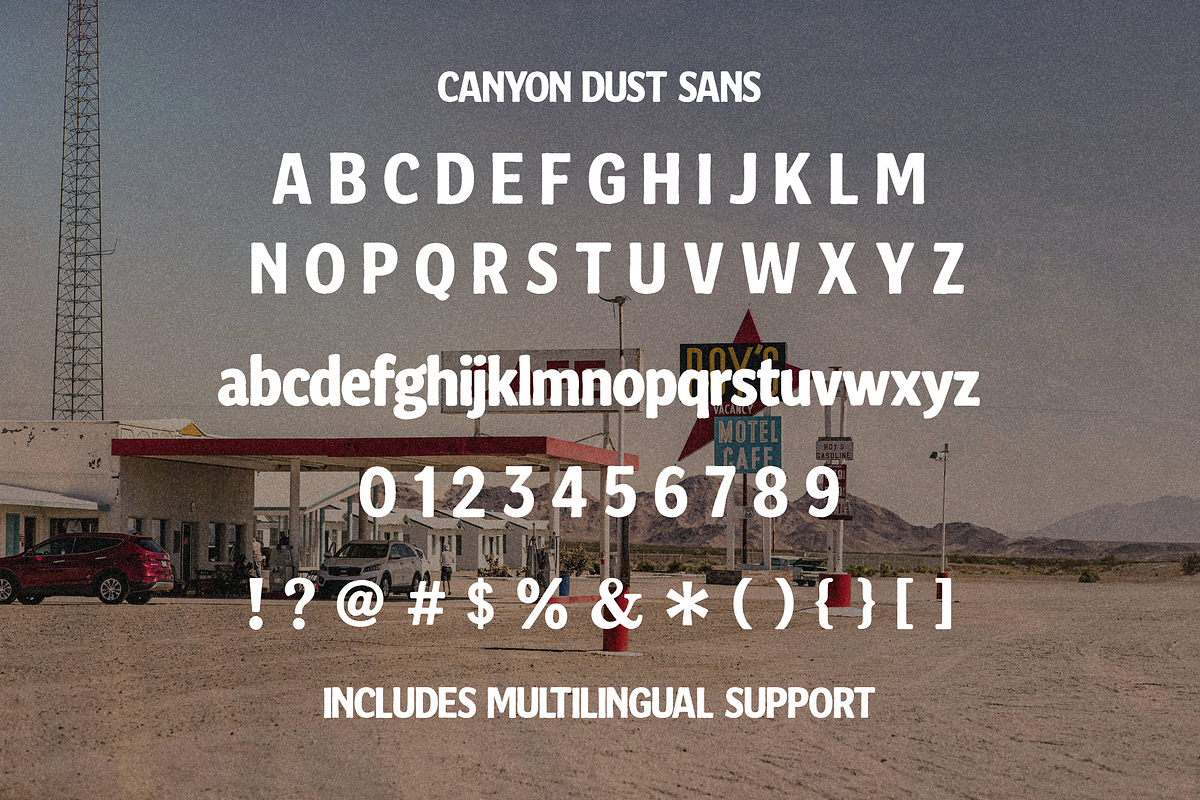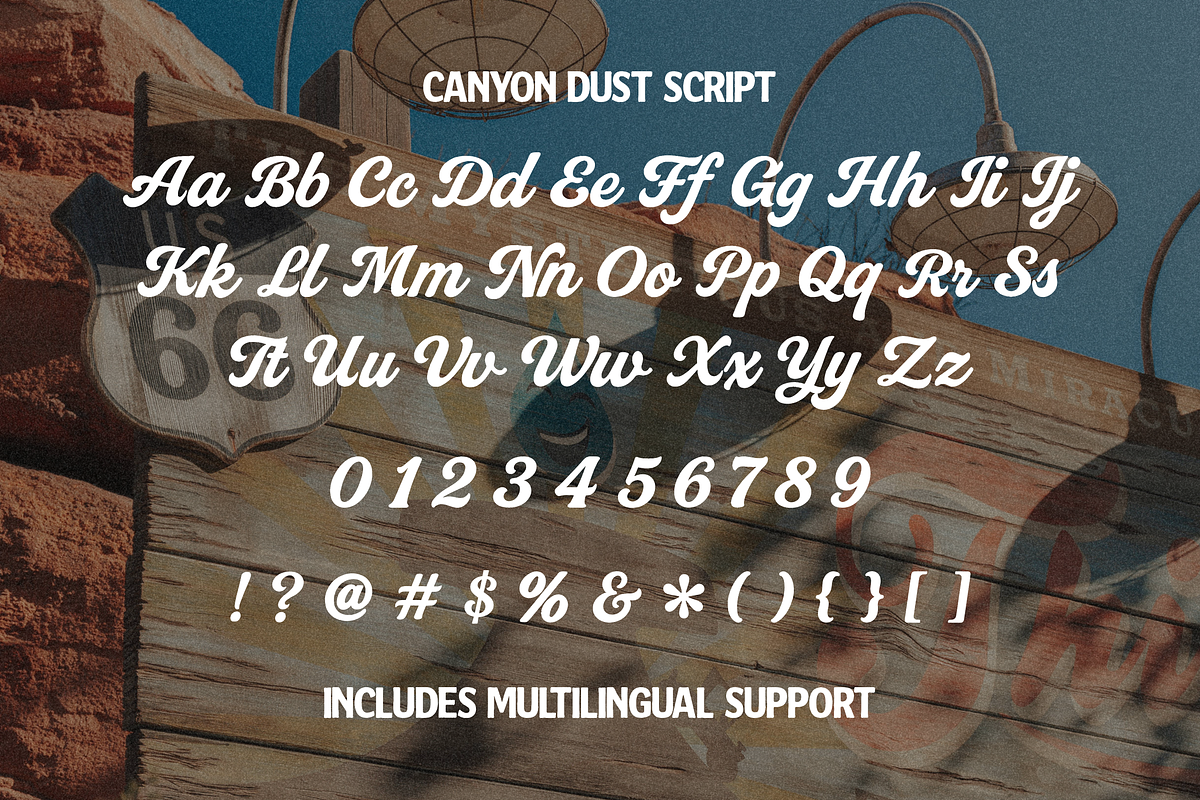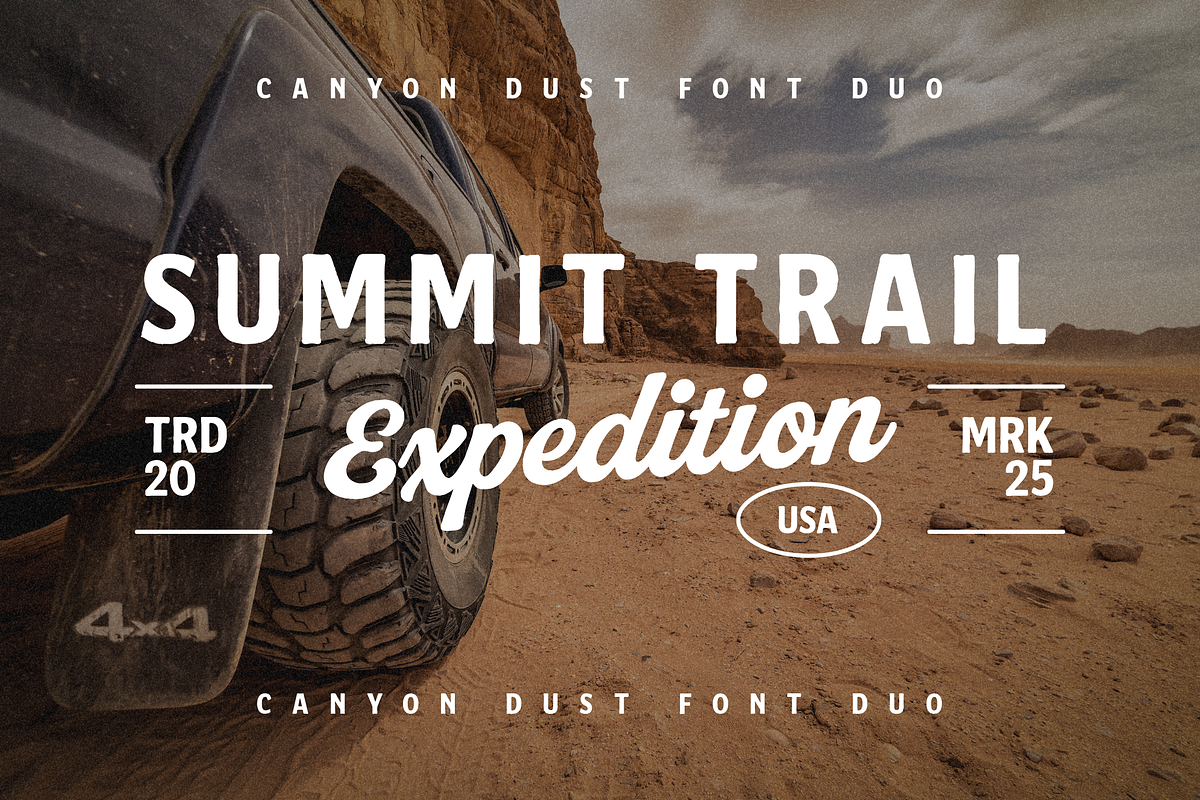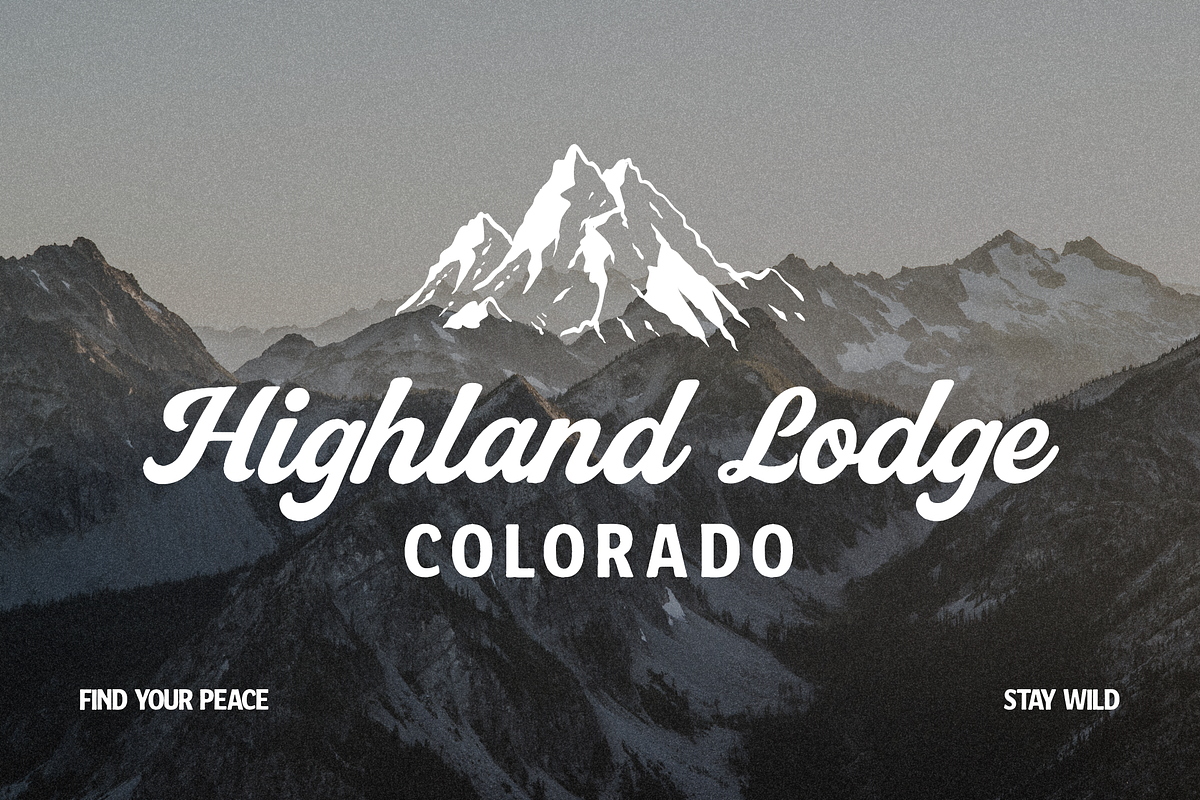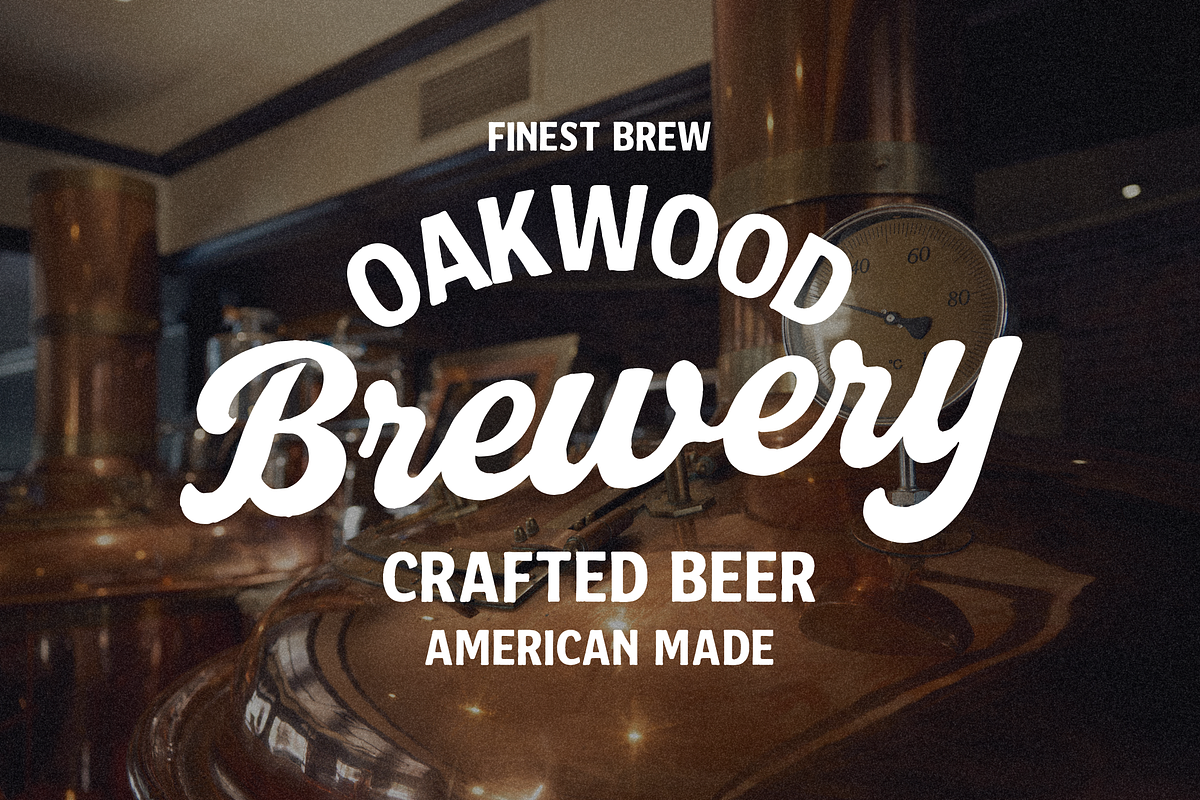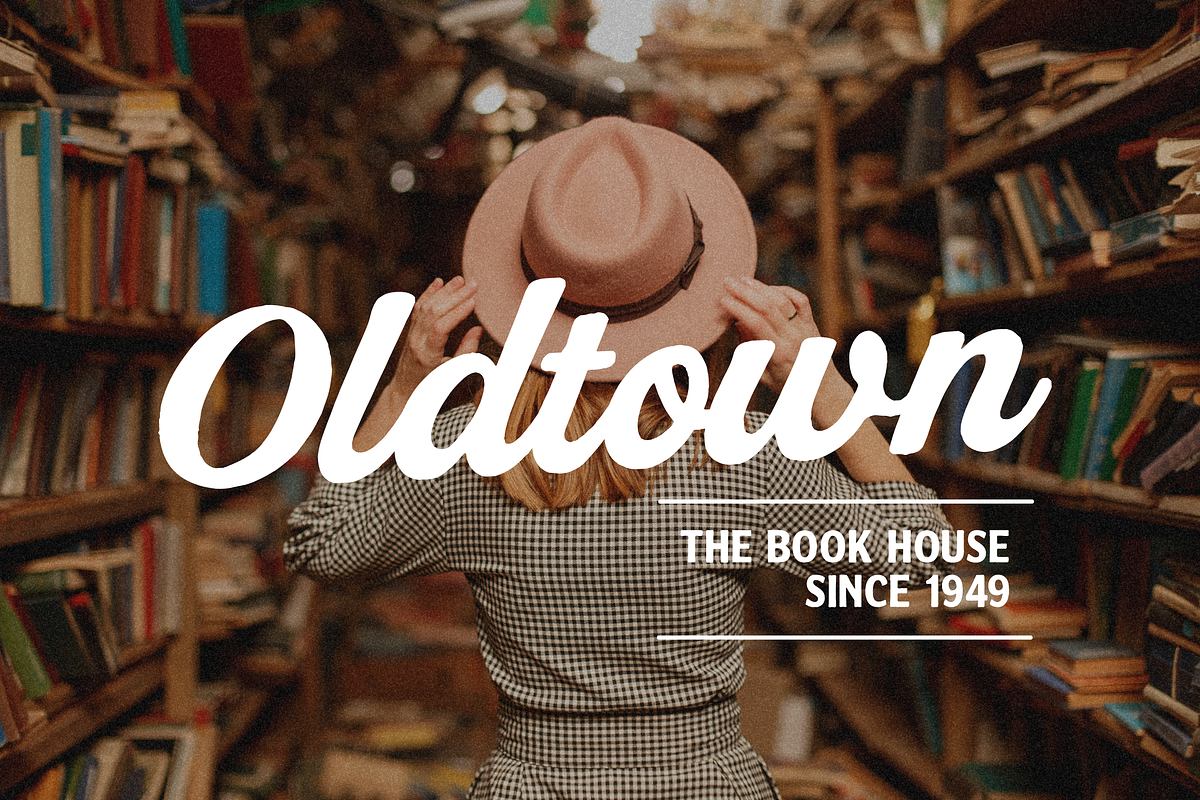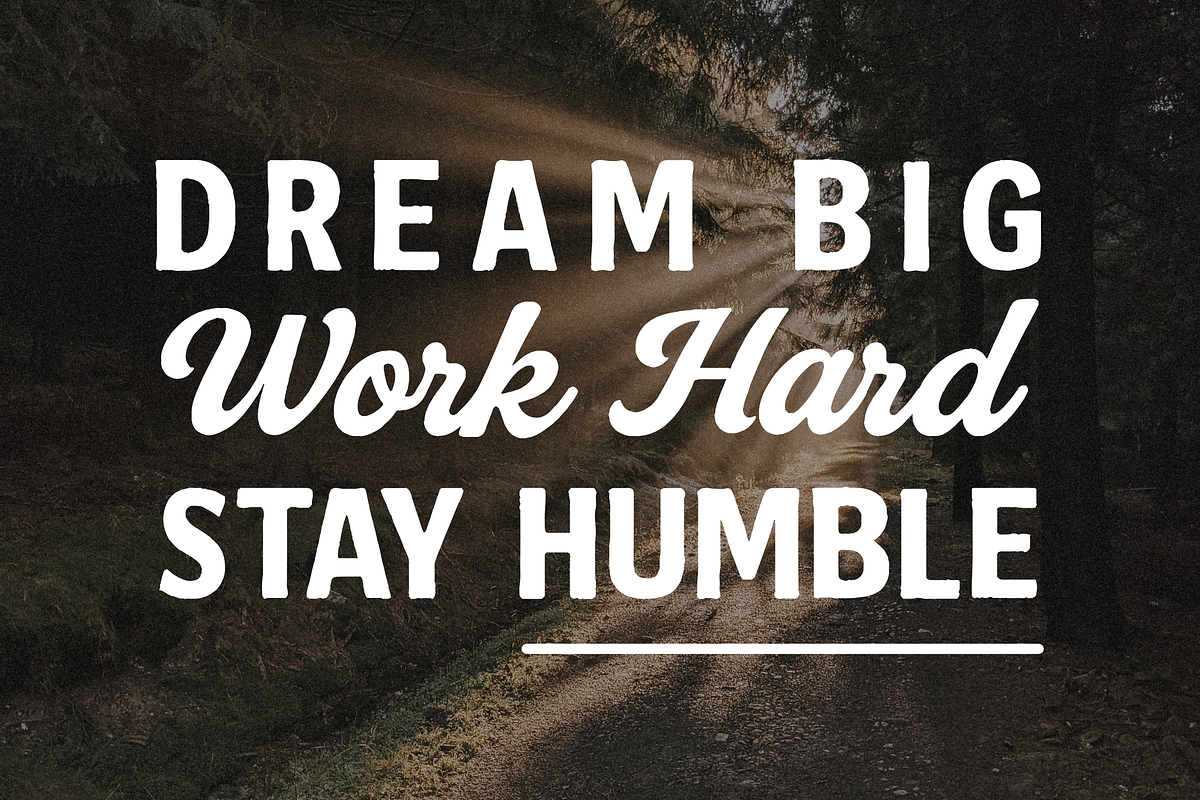
Canyon Dust Handcrafted Font Duo
Canyon Dust – Handcrafted Typeface Duo
Canyon Dust is a versatile font duo that combines a bold vintage sans with a smooth retro script. Inspired by desert landscapes, classic signage, and the spirit of adventure, this handcrafted typeface is designed to bring authenticity, strength, and timeless style to your projects.
Vintage logos & outdoor branding
Clothing labels & handmade product packaging
Retro posters, signage, and editorial design
Coffee shops, lifestyle, travel, and adventure-themed graphics
Bold headlines paired with elegant script accents
Canyon Dust Sans – a bold sans-serif with strong character and easy readability
Canyon Dust Script – a retro script with smooth, authentic handwritten flow
Complete uppercase & lowercase letters, numbers, and punctuation
Why Choose Canyon Dust?
- A perfectly matched duo of sans + script styles
- Delivers a handcrafted, authentic look
- Flexible for branding, editorial, or personal creative projects
- Built to last – a typeface duo made for explorers and creators alike
Canyon Dust – Born in the Desert, Ready for the Streets.